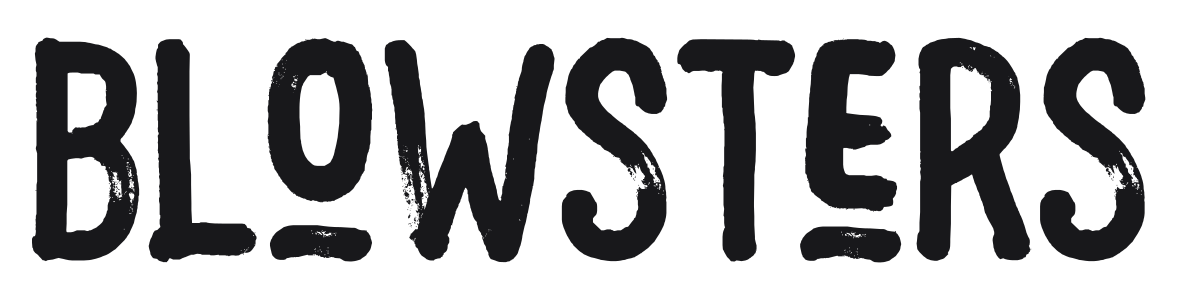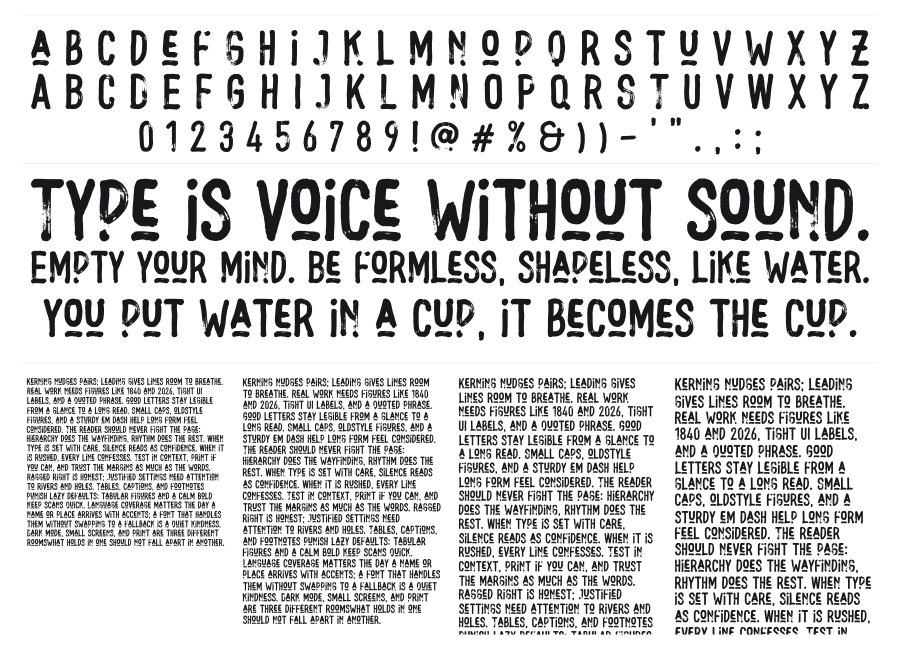
Blowsters
Blowsters is a bold condensed sans with heavy distressed texture that makes every character look freshly stamped with an inky, worn block. The roughness is consistent and expressive without becoming unreadable, keeping the energy of a handmade print. Strong for poster headlines, food packaging, and anything that needs a raw, handcrafted edge.